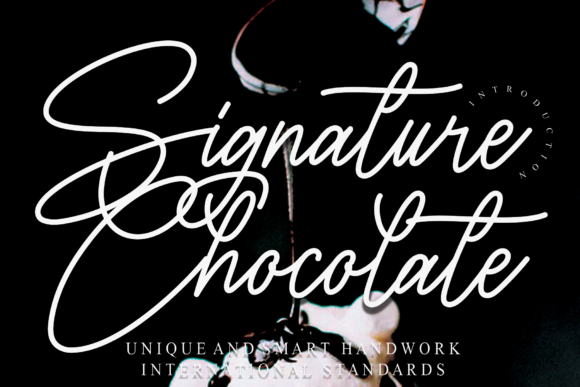
Step into a realm of elegance and charm with Signature Chocolate, a thin, ethereal handwritten font that exudes a touch of asymmetry, imbuing your designs with a unique character. Crafted with meticulous attention to detail by the skilled hands of andikastudio, this script font is a true masterpiece that will elevate your creative projects to new heights.
Signature Chocolate's delicate strokes dance across the page, evoking a sense of fluidity and grace. Its subtle asymmetry adds a touch of intrigue, capturing the eye and inviting the viewer to explore the depths of your designs. Each letterform is carefully crafted, showcasing the beauty of handwritten typography, while maintaining a clean and legible appearance that ensures readability across various applications.
With its versatile nature, Signature Chocolate effortlessly adapts to a wide spectrum of design concepts. Whether you seek to create captivating logos, eye-catching social media posts, or stunning invitations, Signature Chocolate seamlessly blends with your vision, enhancing the impact of your messages. Its thin lines bring a touch of sophistication to branding and marketing materials, while its asymmetrical charm adds a dash of personality to personal projects.
Unleash your creativity and let Signature Chocolate guide you on a journey of artistic expression. Its boundless potential awaits your imagination, ready to transform ordinary words into extraordinary works of art. Embrace the beauty of handwritten typography and let Signature Chocolate add a touch of elegance and charm to your designs.
Immerse yourself in the world of Signature Chocolate, a font that embodies grace, elegance, and timeless beauty. Elevate your designs to new heights and leave a lasting impression on your audience. Explore the endless possibilities that await you with this captivating script font.